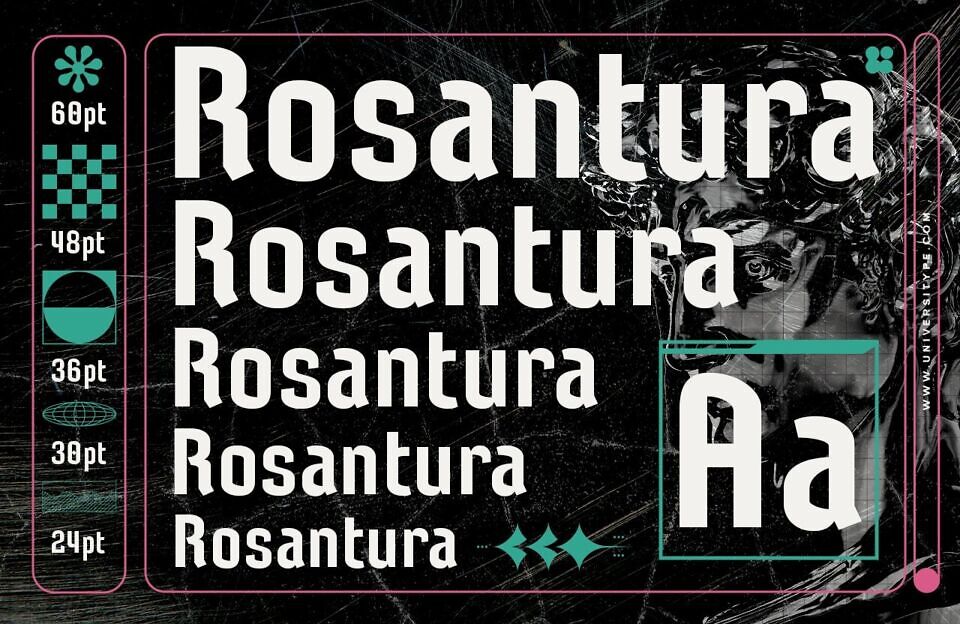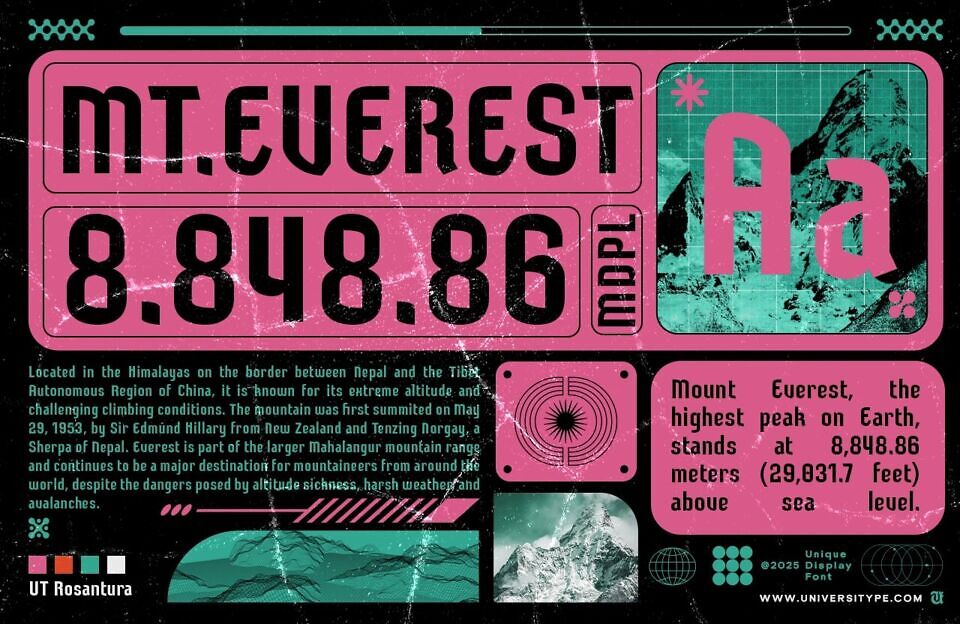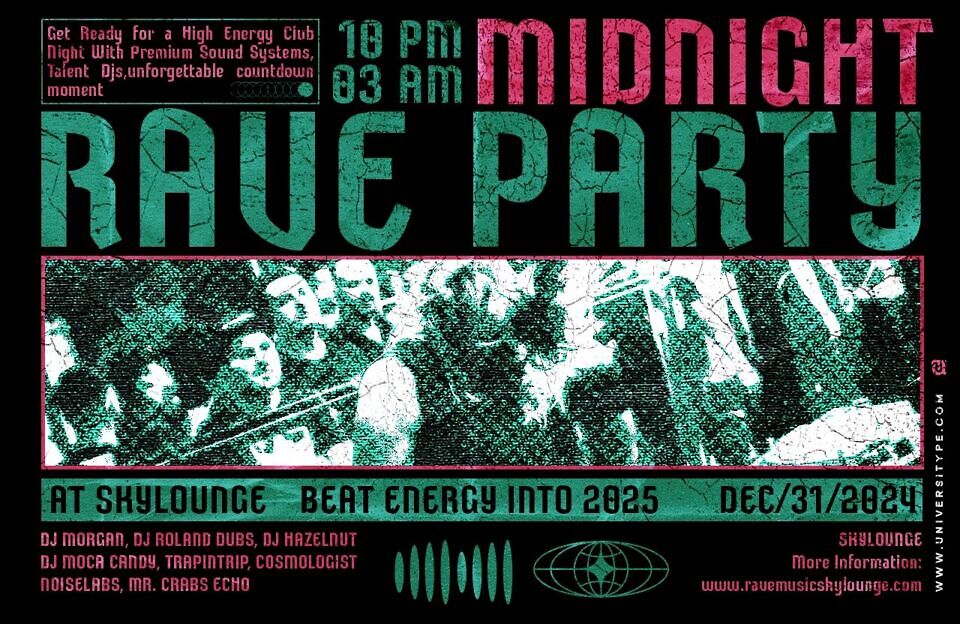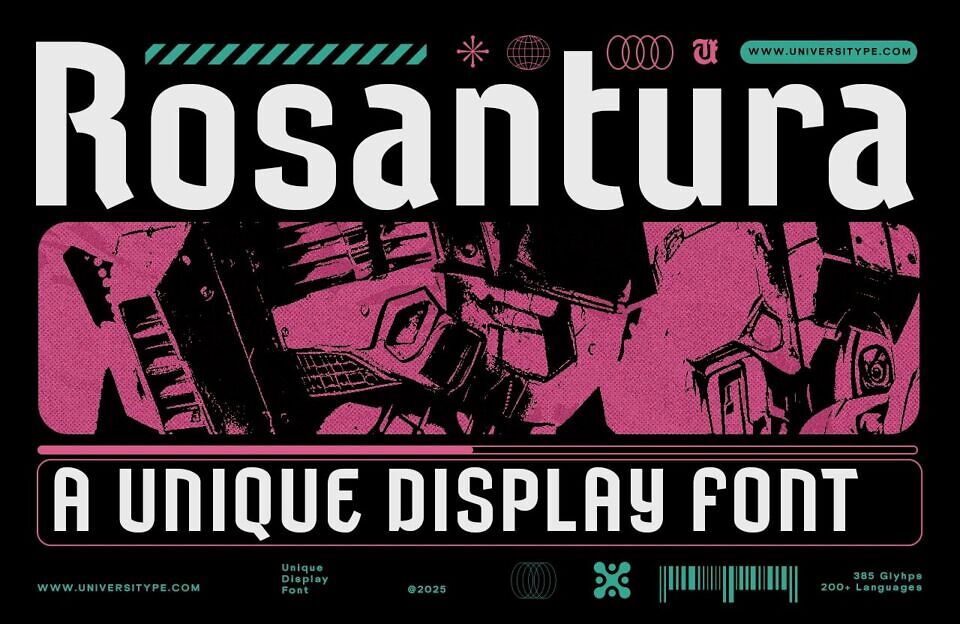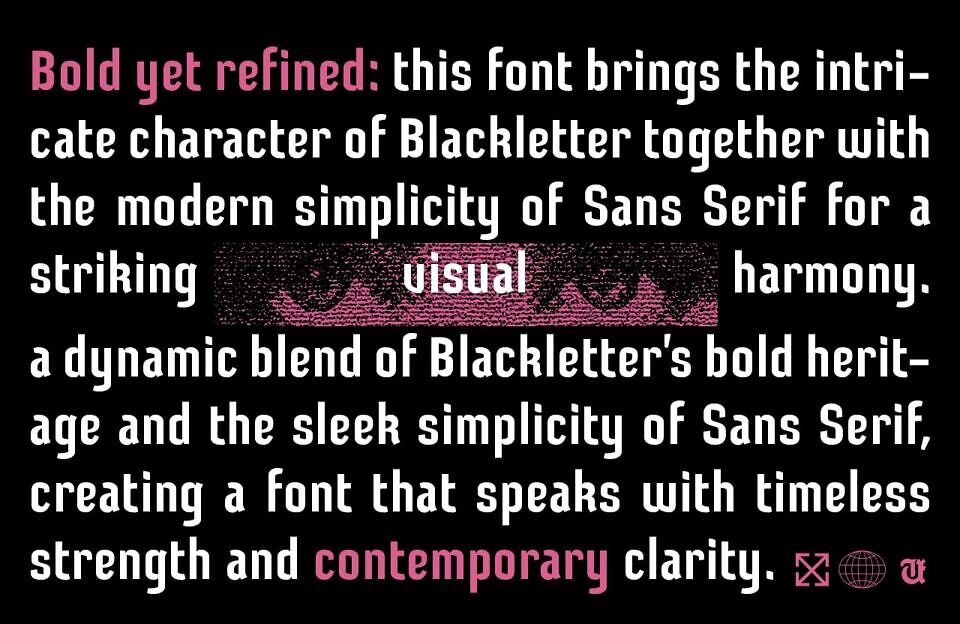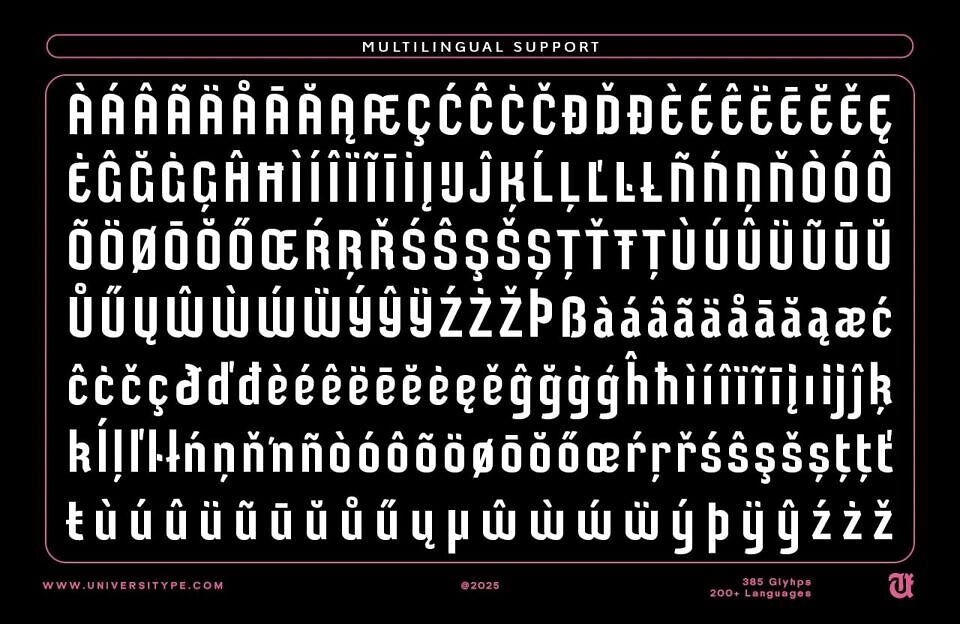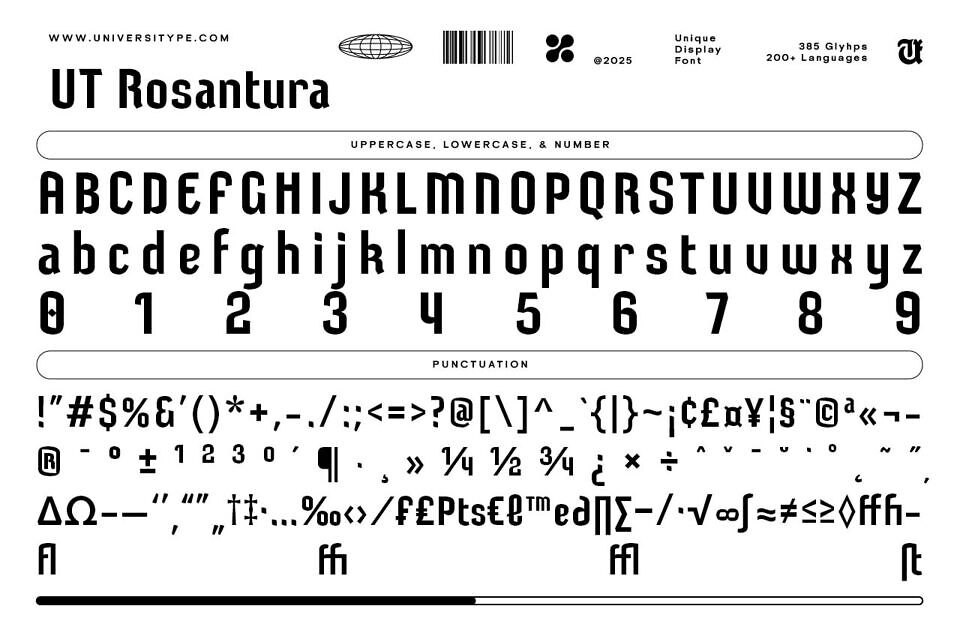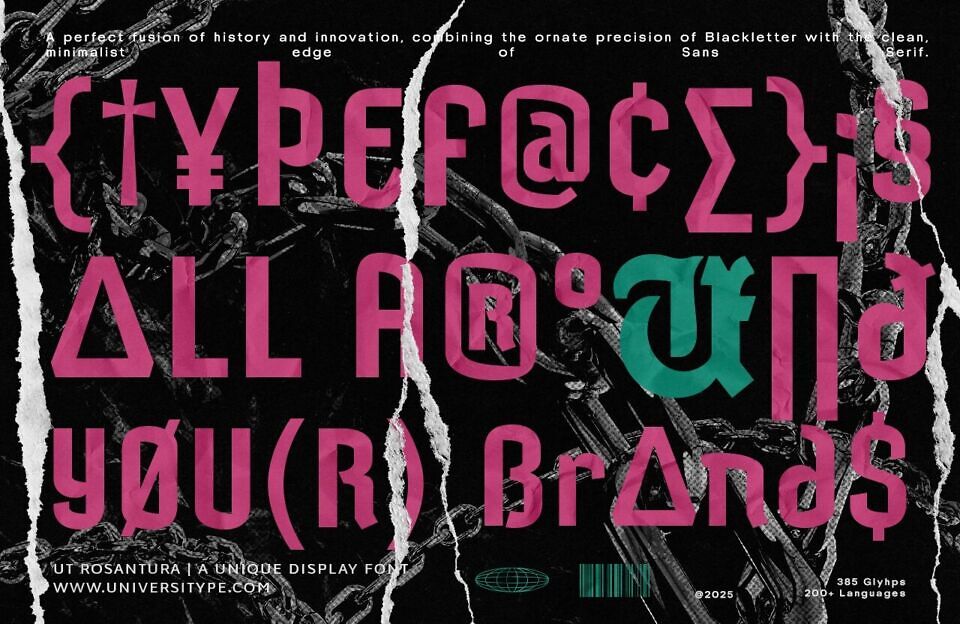
UT Rosantura is an enthralling display font that seamlessly ties the intricate refinement of Blackletter with San Serif’s effortless elegance. UT Rosantura stands as more than just a font; it’s a typographical instrument infusing your design projects with a distinctive flair and substance like none other.
Tailored with precision, UT Rosantura is an ideal companion for graphic designers, typographers, and creative professionals seeking an exceptional typeface to enliven their artwork. Offering unrivaled versatility, this font embraces both personal and commercial projects, striking a chord with an international audience that appreciates the synchrony of classical and contemporary trends in design.